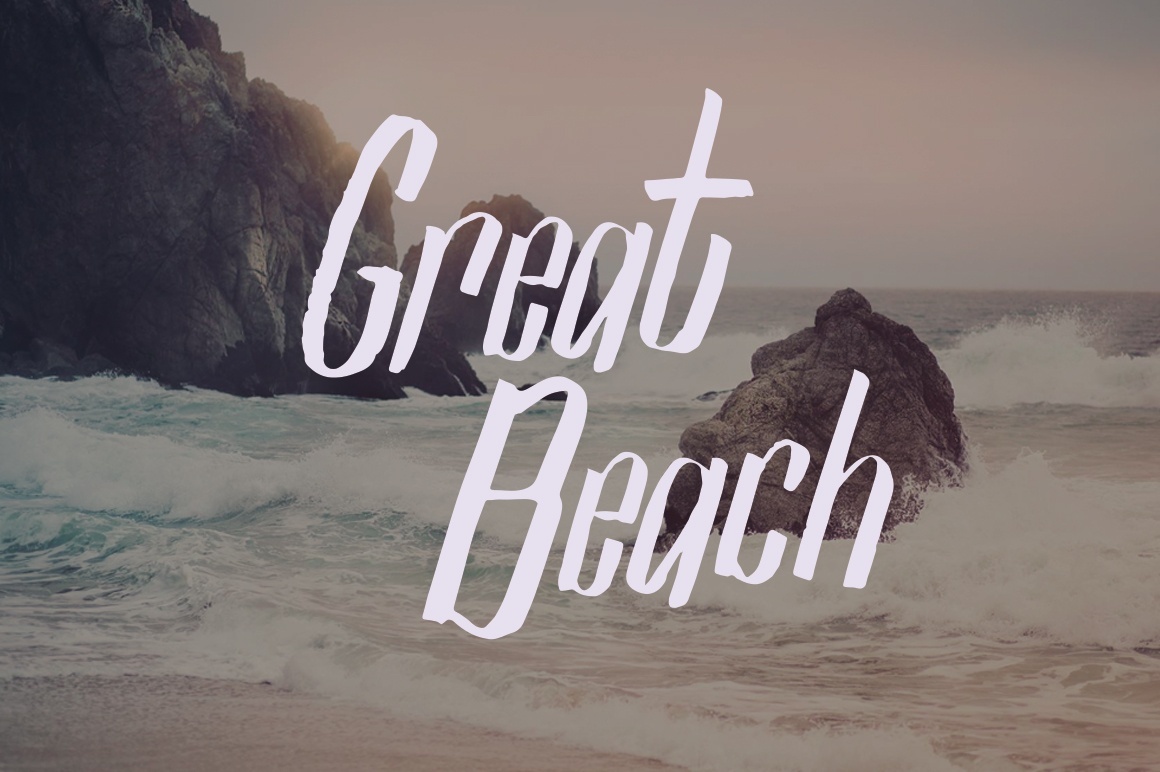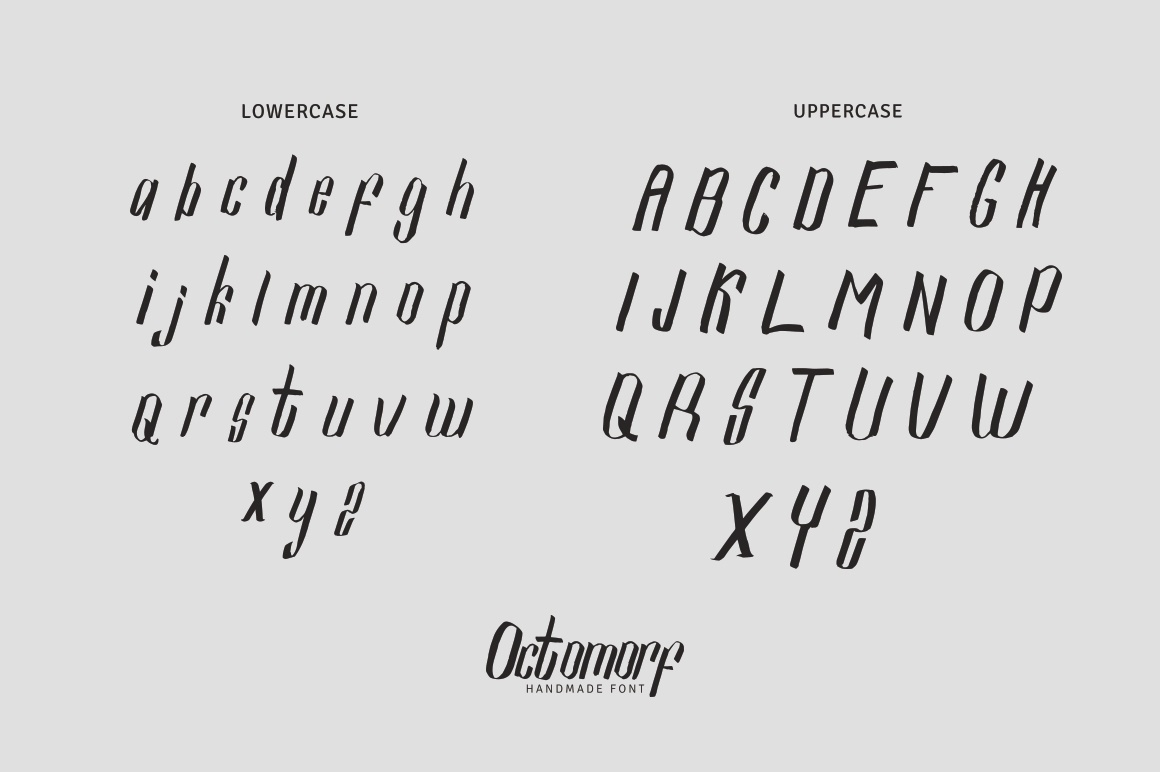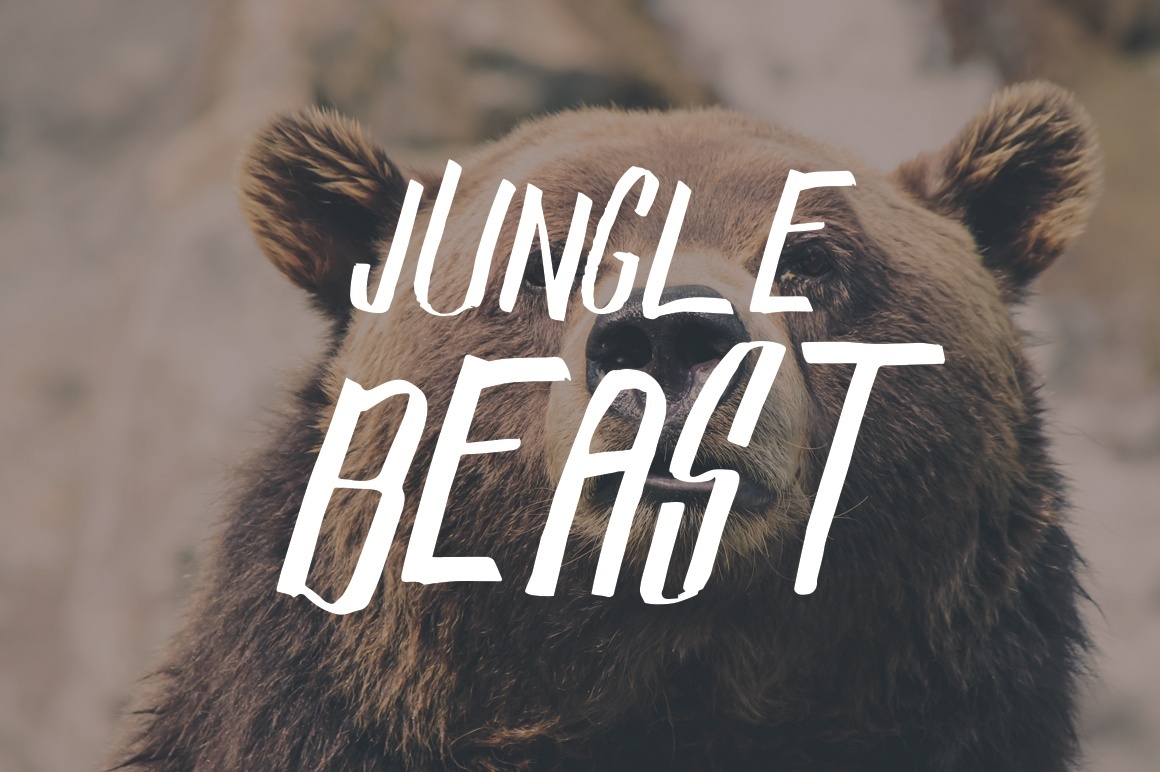
Octomorf Typeface
Octomorf Typeface – A Dirty Handwritten Font
Octomorf is a handmade font in 2 different types uppercase and lowercase, punctuation glyphs, numerals and supports international languages. This font are perfect for logo marks, vintage logo, badge design, poster design, typographic quotes over photos, book covers and packaging design.